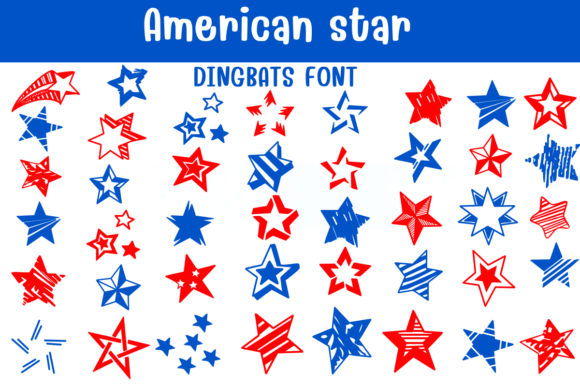
Introducing American Star: A Festive Dingbats Font for Creative Projects
Are you looking for a font that can add a touch of festivity and patriotism to your creative projects? Look no further than American Star, a dingbats font designed with a festive theme. This versatile font is perfect for a wide range of applications, from wedding invitations and DIY crafts to decorations, logos, and more.
What is American Star Font?
American Star is a unique dingbats font that features a collection of festive and patriotic symbols, including stars, stripes, and other Americana-inspired icons. The font is designed to be easy to use and can be incorporated into a variety of creative projects, making it a must-have for designers, crafters, and DIY enthusiasts.
Features of American Star Font
- Festive theme: American Star features a festive theme that’s perfect for patriotic projects, weddings, and other celebrations.
- Dingbats font: The font features a collection of dingbats, including stars, stripes, and other icons that can add a touch of whimsy to your projects.
- Versatile: The font can be used for a wide range of applications, from digital projects to print materials.
Uses for American Star Font
American Star is a versatile font that can be used for a wide range of creative projects, including:
- Wedding invitations: Add a touch of festivity and patriotism to your wedding invitations with American Star.
- DIY crafts: Use American Star to create custom signs, decorations, and other DIY projects.
- Logos: Incorporate American Star into your logo design to add a touch of whimsy and festivity.
- Decorations: Use American Star to create custom decorations, such as garlands, banners, and more.
- Digital projects: American Star can be used for digital projects, such as social media graphics, blog posts, and more.
Benefits of Using American Star Font
Using American Star font can offer a range of benefits, including:
- Unique and eye-catching designs: American Star features a unique and eye-catching design that can help your projects stand out.
- Time-saving: American Star can save you time and effort by providing a pre-designed font that can be easily incorporated into your projects.
Tips for Using American Star Font
Here are some tips for using American Star font:
- Experiment with different sizes and colors: American Star can be used in a variety of sizes and colors, so don’t be afraid to experiment and find the look that works best for your project.
- Combine with other fonts: American Star can be combined with other fonts to create a unique and eye-catching design.
- Use for digital and print projects: American Star can be used for both digital and print projects, making it a versatile font that can be used across a range of applications.
American Star is a festive dingbats font that’s perfect for designers, crafters, and DIY enthusiasts who want to add a touch of patriotism and whimsy to their creative projects. With its easy-to-use design, versatile applications, and cost-effective pricing, American Star is a must-have font for anyone looking to create unique and eye-catching designs.